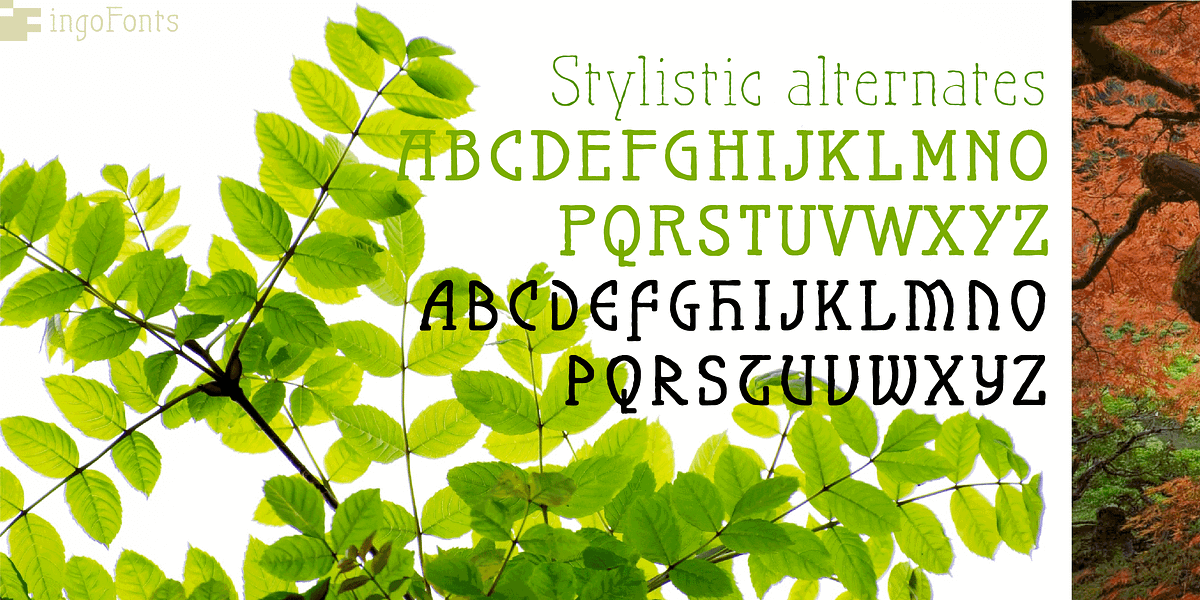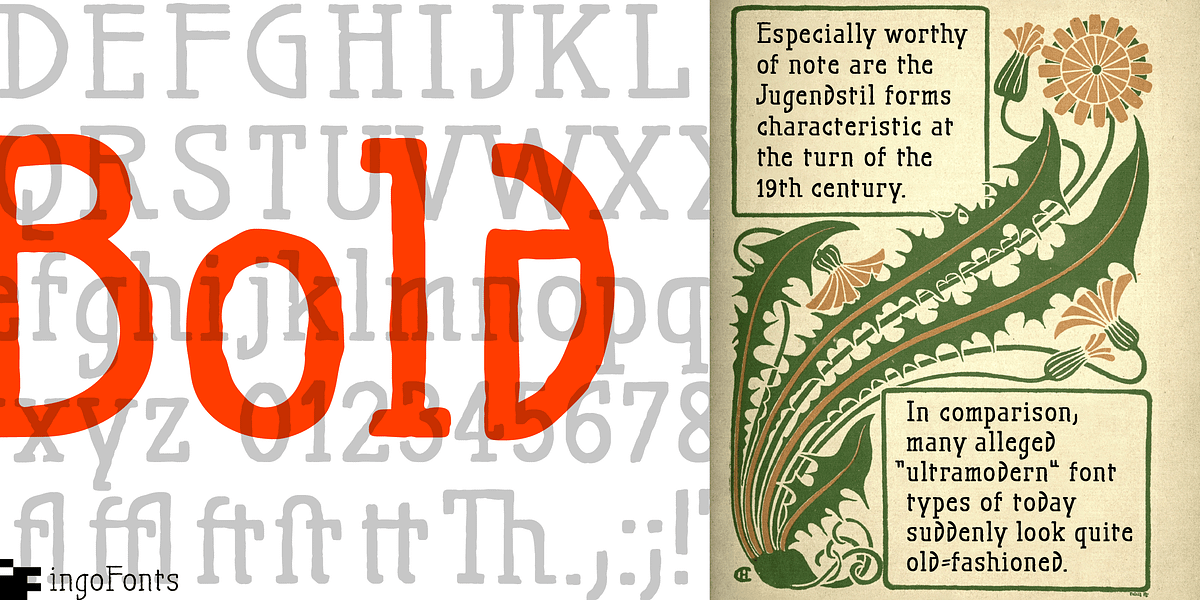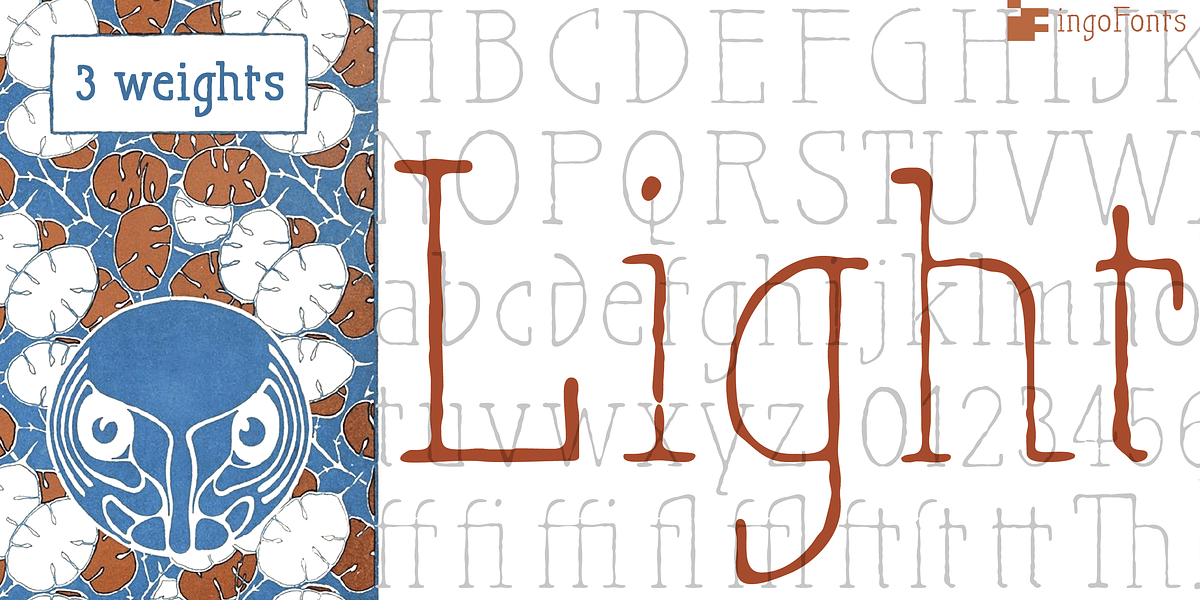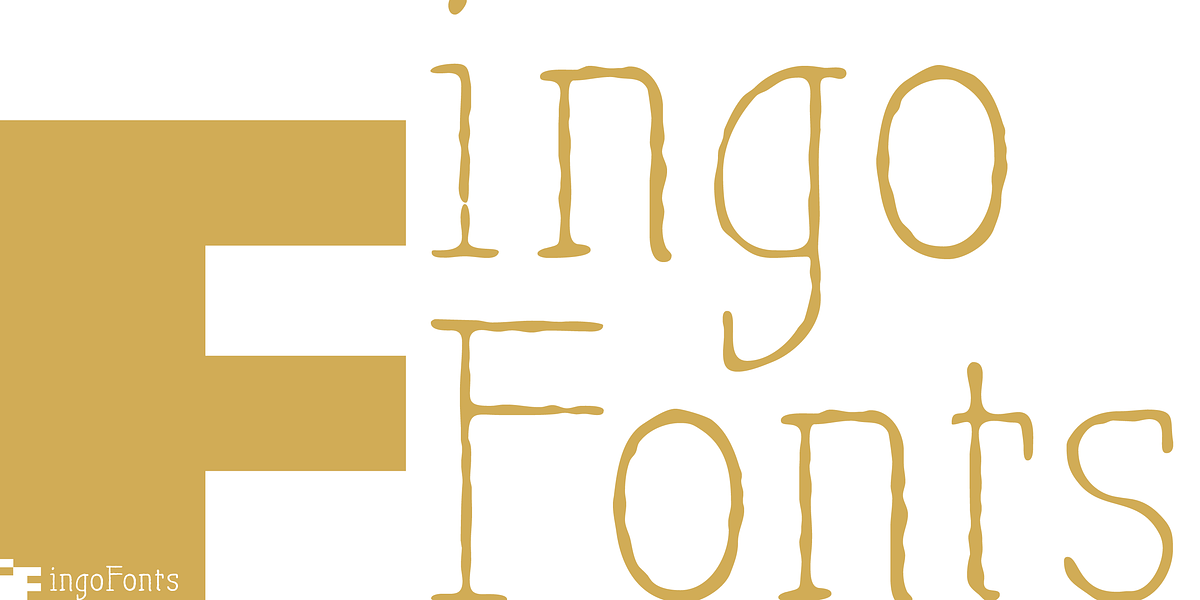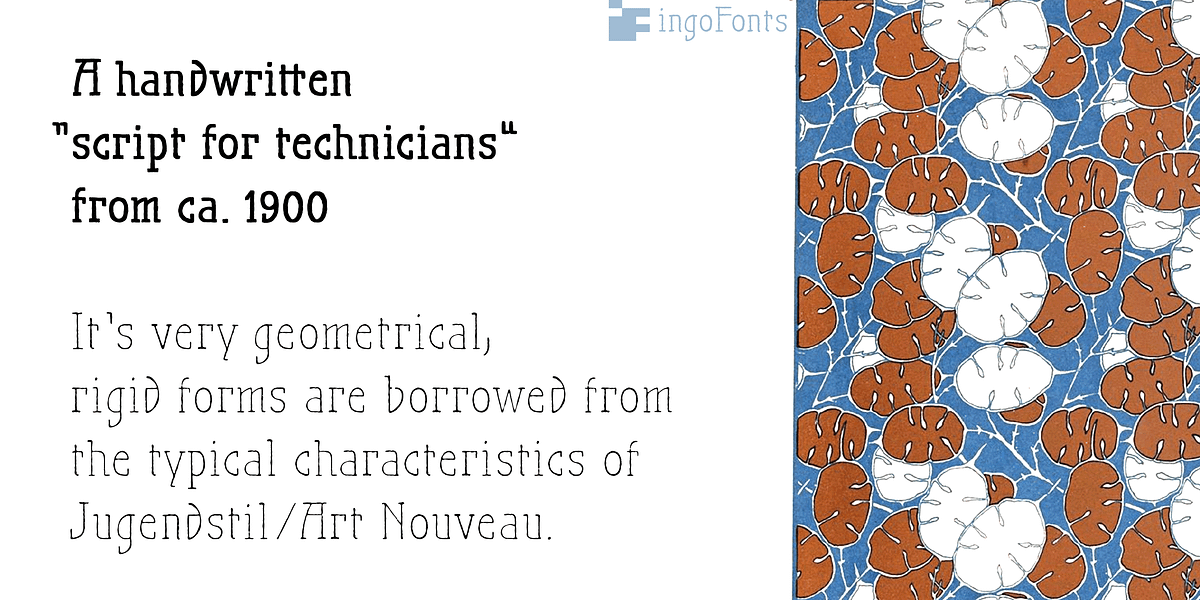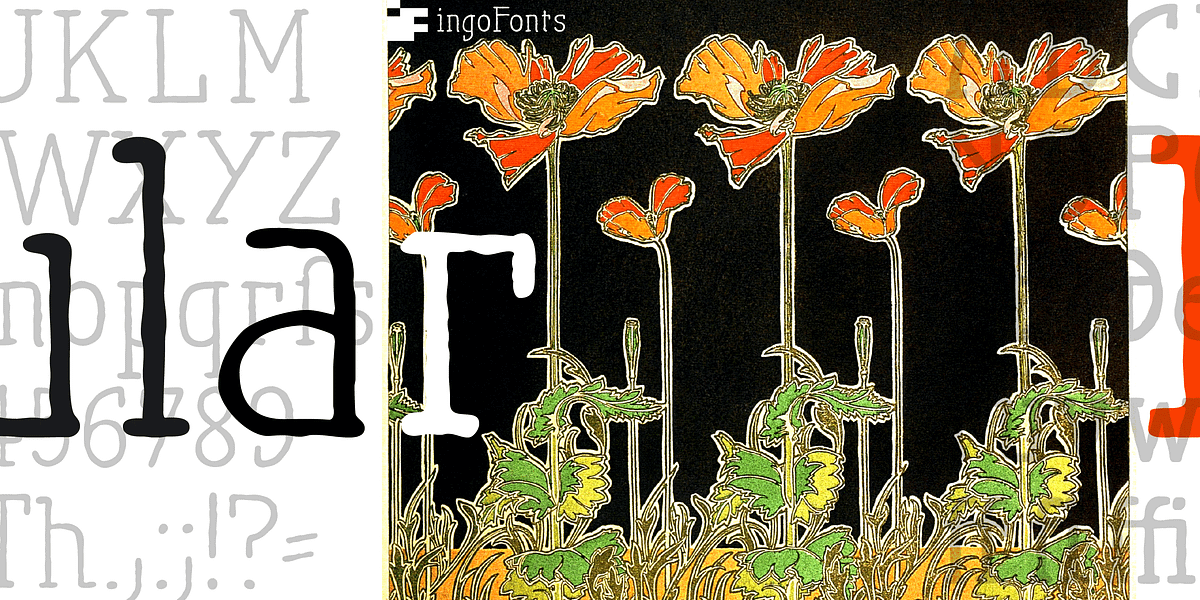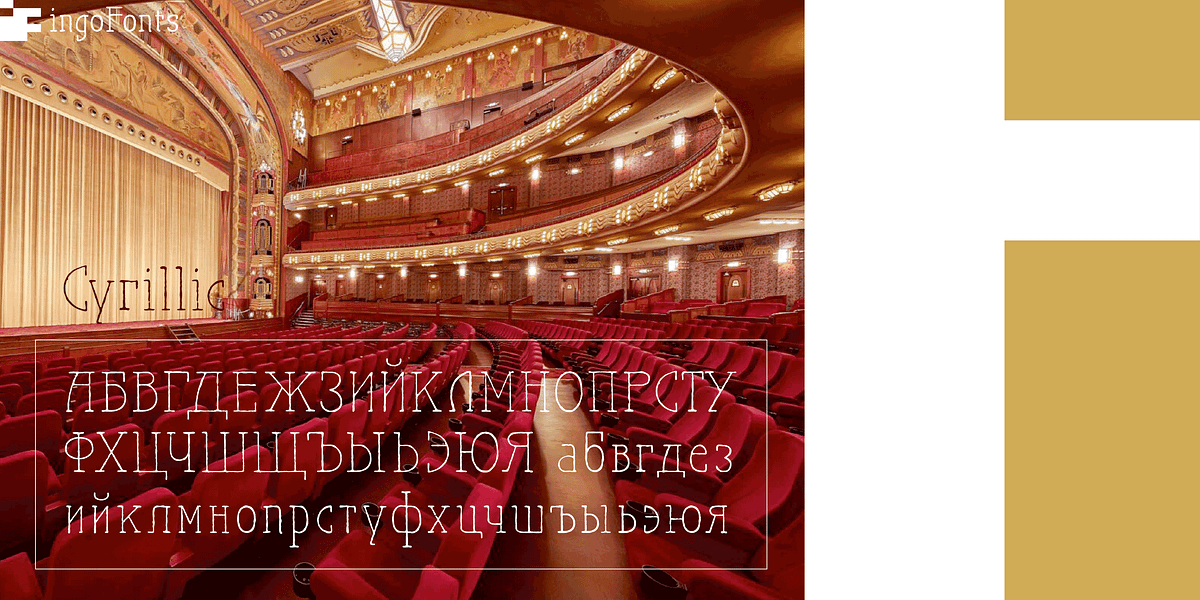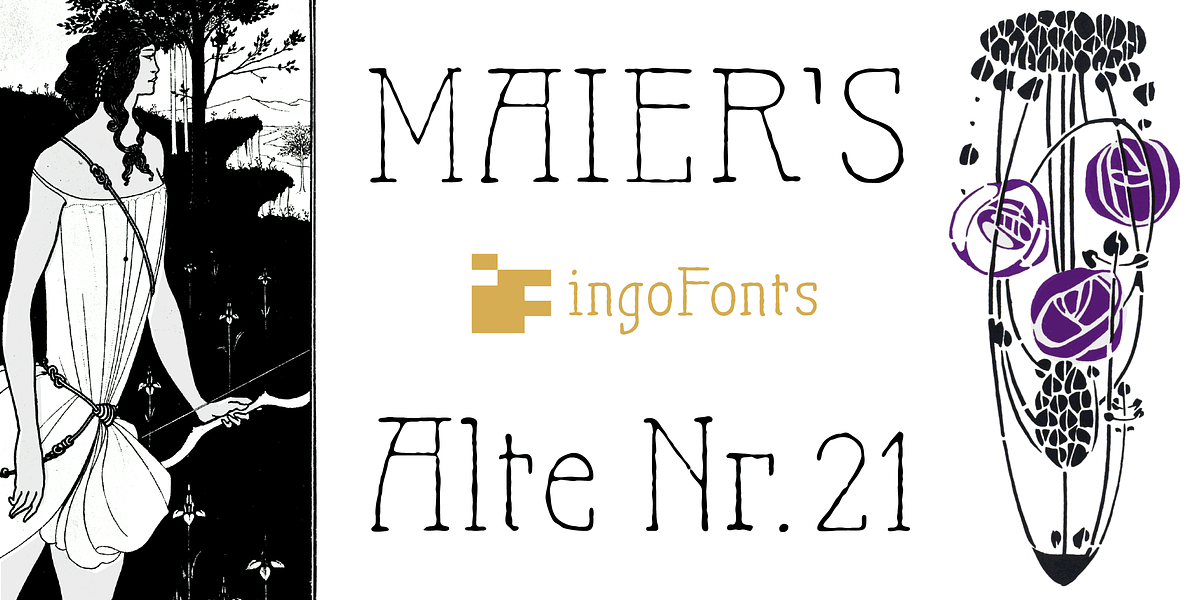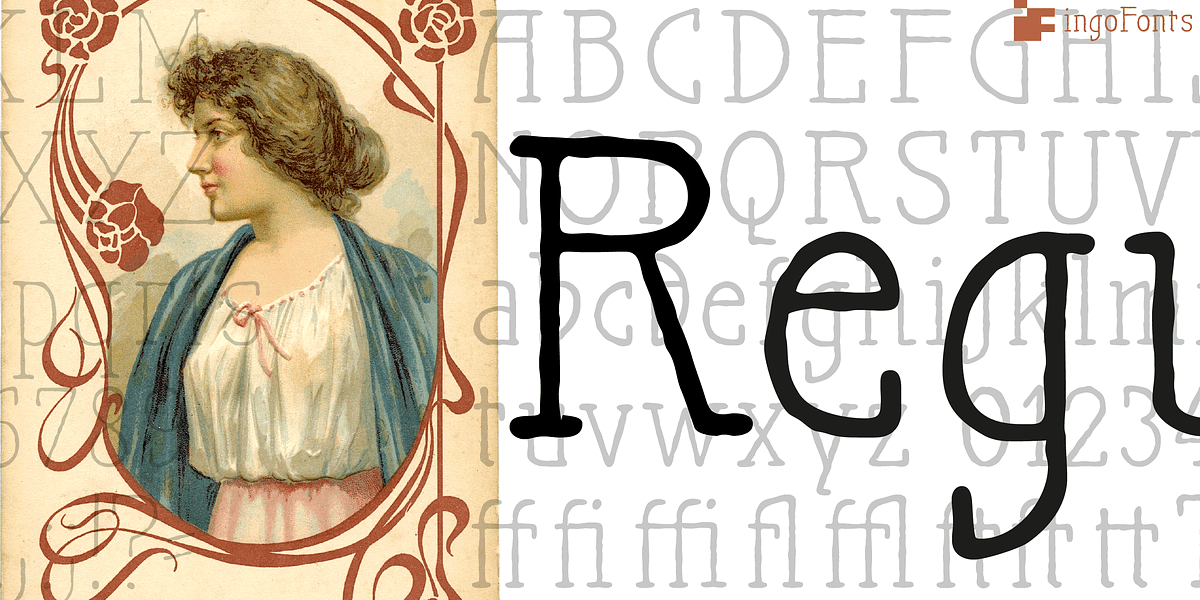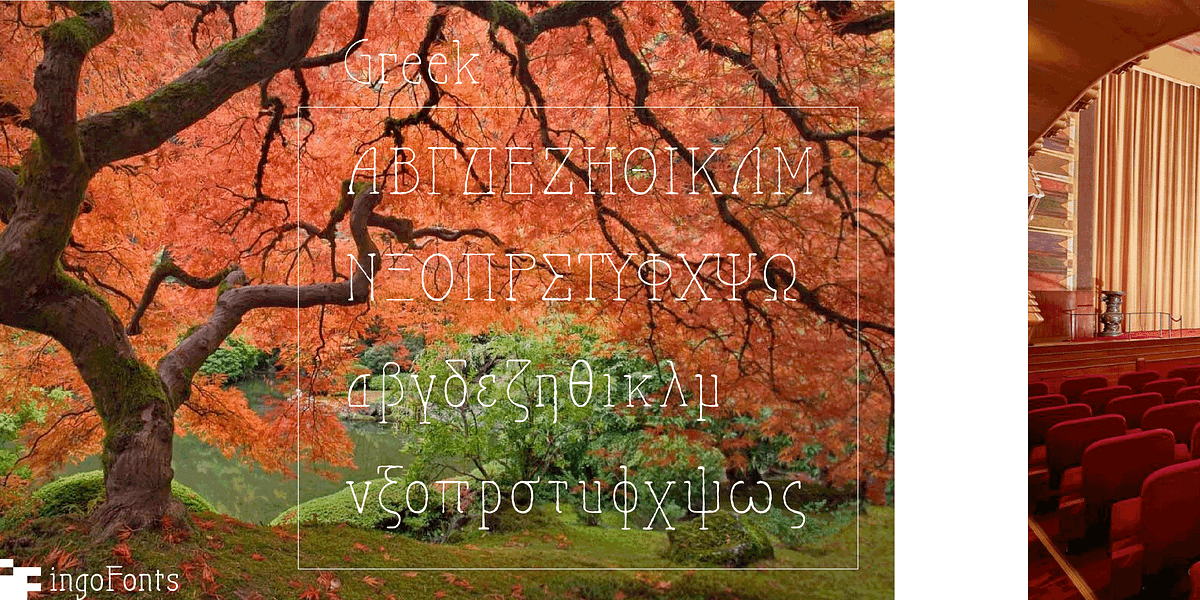
Maier's Nr. 21 Pro
This font is a digitized recreation of a handwritten script originally used by technical professionals in the early 1900s. Its style reflects the geometric and decorative influences of Art Nouveau prevalent at that time. The digitization process aimed to preserve the uneven edges characteristic of handwriting, giving it an authentic handmade feel.